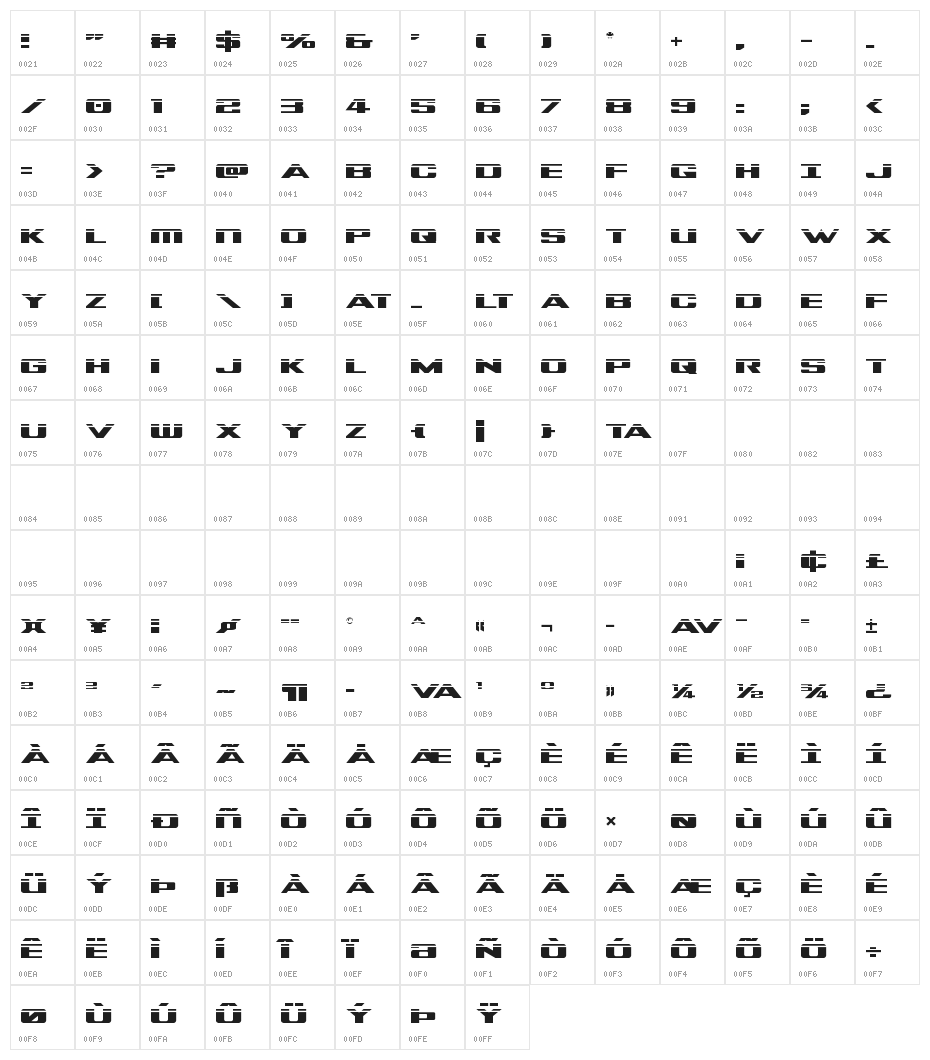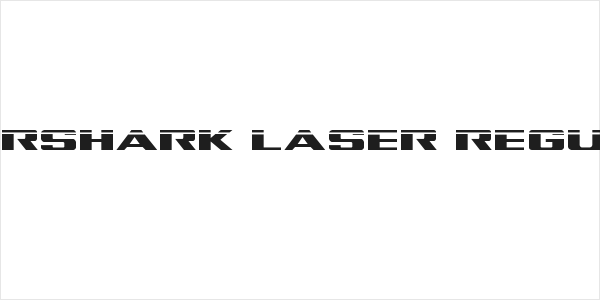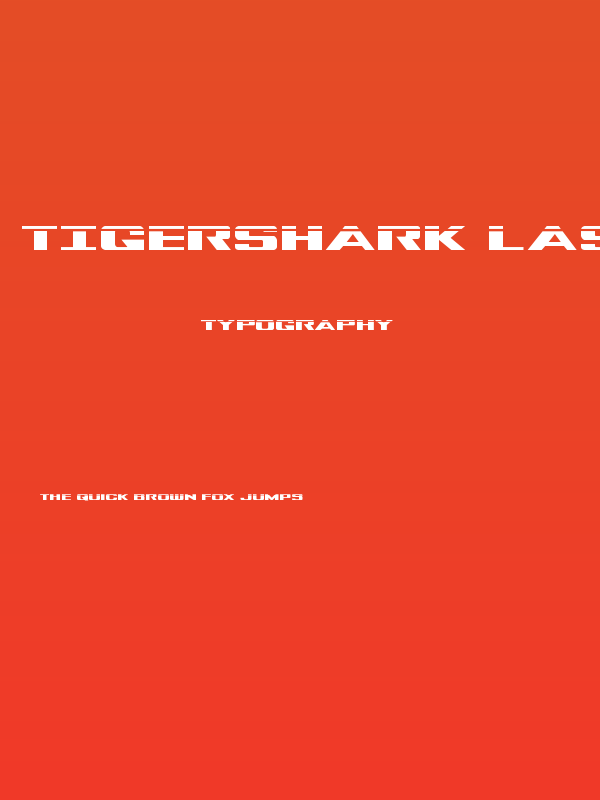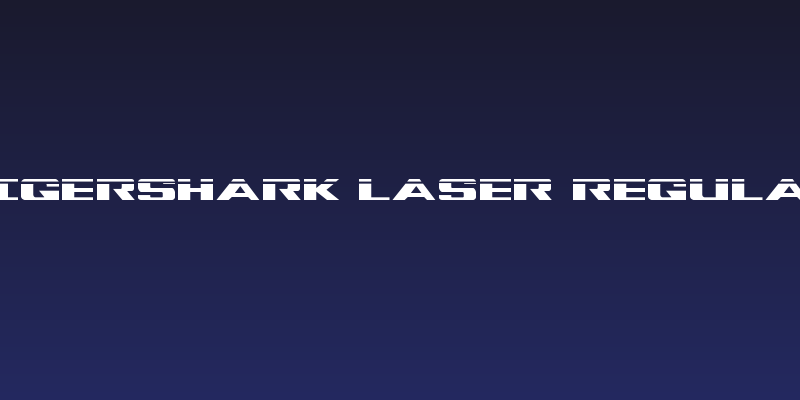
Tigershark Laser Regular Font
Tigershark Laser Regular Description
This font features a bold, futuristic design with sharp, angular edges and a geometric structure. The characters are wide and blocky, giving a strong, impactful appearance. The uppercase letters are particularly striking, with a consistent height and width that create a uniform look. The lowercase letters maintain the same boldness, ensuring readability while retaining the font's distinctive style. Numbers and special characters follow the same design principles, making them easily recognizable. The font's overall aesthetic is modern and dynamic, suitable for projects that require a strong visual presence.